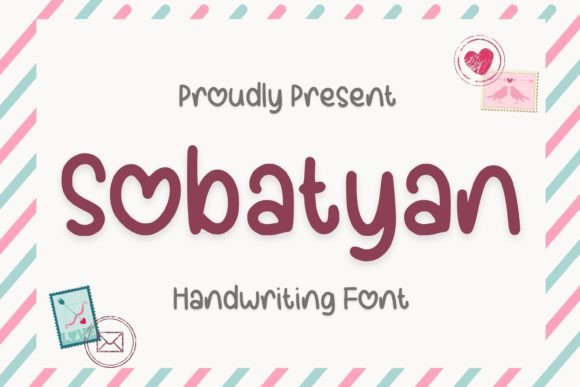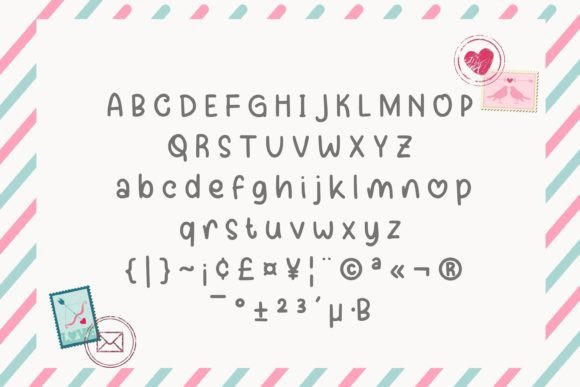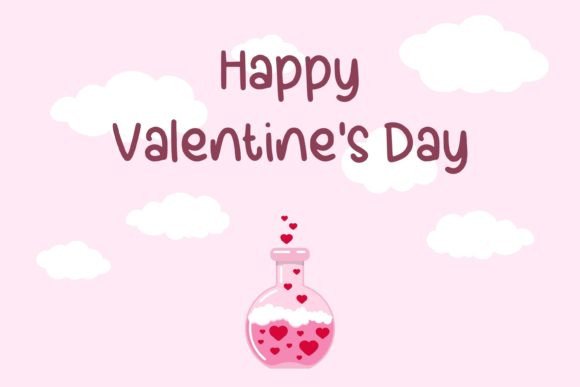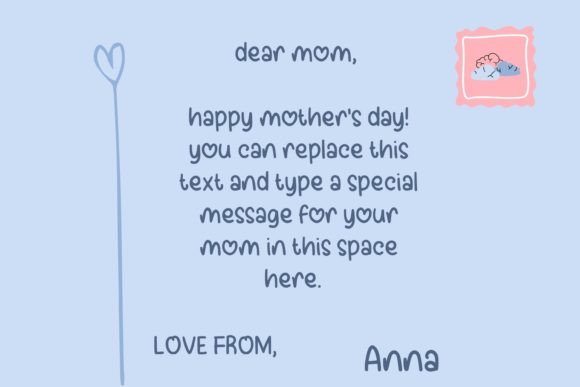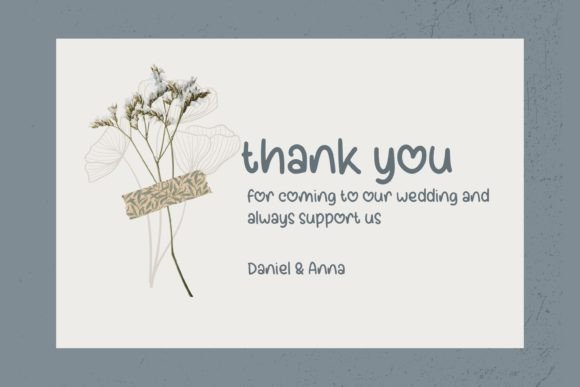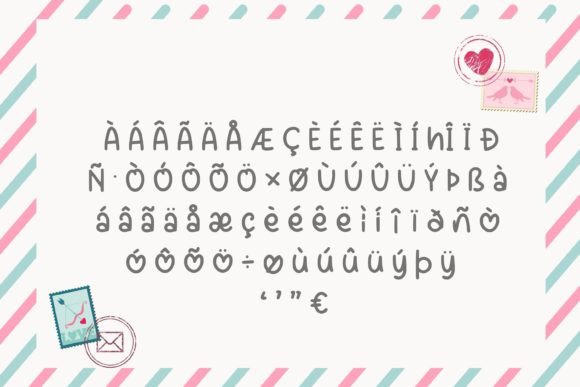
Sobatyan Font
About Sobatyan Font
**Sobatyan**: *Where Cute Simplicity Meets Authenticity*
Sobatyan is more than just a font; it’s a cute and simple lettered handwritten typeface that blends charm with authenticity. With its adorable design, this font is perfect for creating chalkboard quotes, teaching materials, or any project that benefits from a touch of cuteness and a sense of realism.
What sets Sobatyan apart is its ability to seamlessly combine cute simplicity with an authentic look. The font’s handwritten characters exude a sense of charm and authenticity, making it an ideal choice for projects that require a genuine, handcrafted feel. Sobatyan is the font that effortlessly adds a dash of cuteness and realism to your designs.
Sobatyan strikes a harmonious balance between modern aesthetics and classic charm, making it a versatile choice for various creative applications.
In chalkboard quotes and teaching materials, Sobatyan adds a unique sense of character and visual appeal, making your content engaging and relatable. The font’s authentic look gives your projects a realistic, hand-drawn feel, making them warm and inviting. Whether you’re designing for digital or print, Sobatyan brings an air of authenticity and charm to your creative work.
One of Sobatyan’s most remarkable qualities is its adaptability. It can effortlessly transition from a friendly and playful tone to a more expressive and artistic one, making it suitable for a wide range of creative needs. Its ability to convey cute simplicity and authenticity ensures that it remains a cherished choice for designers and creators across diverse industries.
In summary, Sobatyan is more than just a font; it’s a design asset that masterfully combines cute simplicity with authenticity. Its charming characters and authentic look position it as an indispensable tool for anyone seeking to infuse their creative projects with a touch of cuteness and genuine, handcrafted appeal. Embrace the cute simplicity and authenticity of Sobatyan, and watch your designs come to life with ease and artistic flair, leaving a lasting impression and captivating your audience with its charming and relatable presence.